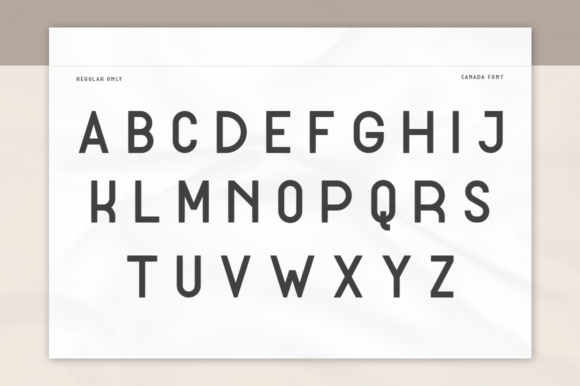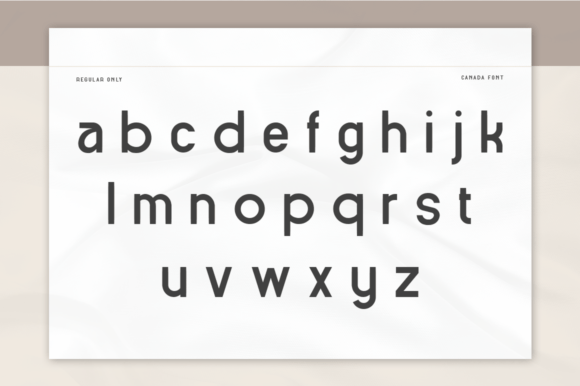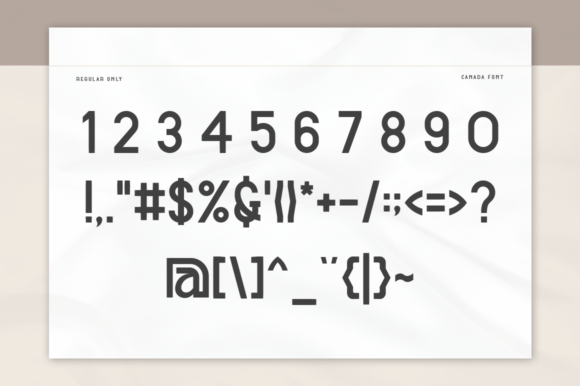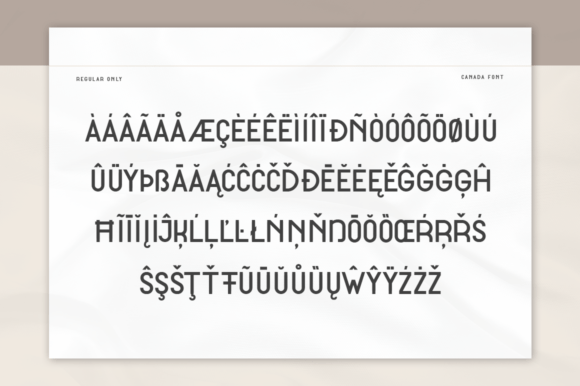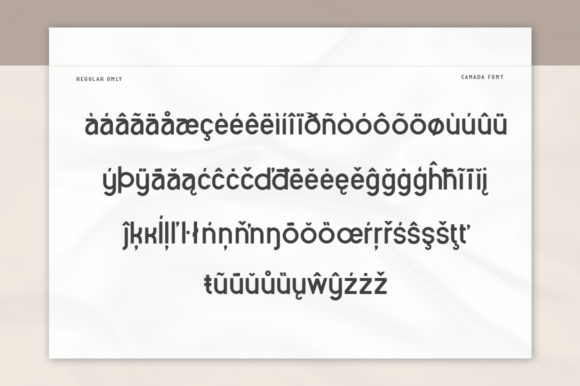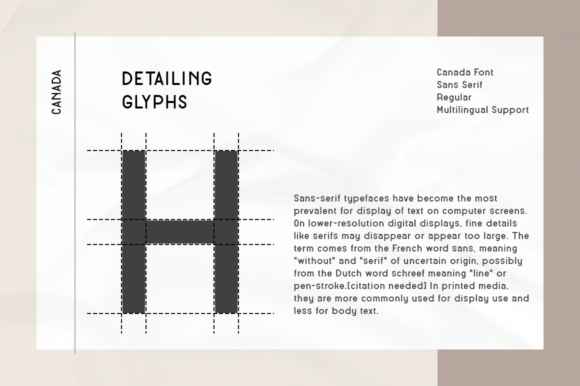
The Elegance of Canada Font: A Designer’s New Best Friend
I still remember the design project that led me to discover the Canada font. I was working on a luxury fashion magazine, and my client was adamant about finding a font that exuded high-end sophistication. After hours of scouring through font libraries, I stumbled upon Canada, and it was love at first sight! ✨ Its clean lines, balanced proportions, and effortless elegance won me over, and I’ve been hooked ever since.
An Honest Review of Canada Font
- ✅ **Timeless appeal**: Canada font has a classic, sophisticated look that never goes out of style.
- ✅ **Versatility**: Its clean lines and balanced proportions make it perfect for a range of design projects, from fashion magazines to luxury brand logos.
- ✅ **Easy to read**: The font’s clear and concise design makes it easy to read, even at small sizes.
- ✅ **High-end feel**: Canada font is perfect for designs that require a touch of luxury and sophistication.
While Canada font is an excellent choice for many design projects, it’s not without its quirks. 🤔 For example:
- ⚠️ **Limited character set**: Canada font might not have the most extensive character set, which can limit its use for certain languages or non-English text.
- ⚠️ **Not ideal for body text**: While Canada font is easy to read, its elegant design might not be the best choice for long blocks of body text.
- Experiment with OpenType features, such as ligatures and stylistic alternates, to add an extra touch of elegance to your design.
- Explore the font’s glyphs and OpenType features, such as stylistic alternates and swashes, to add visual interest to your design.
The Backstory of Canada Font
Canada font was designed by a team of typographers who wanted to create a font that embodied the country’s values of elegance, sophistication, and refinement. The font’s clean lines and balanced proportions were inspired by the country’s stunning natural landscapes and vibrant cities. 🌟
| Font Name | Canada Font |
| Author | MaxWyner Shop |
| What is Canada font? | Canada font is a chic and sophisticated sans-serif font that’s perfect for designs that require a touch of elegance and refinement. |